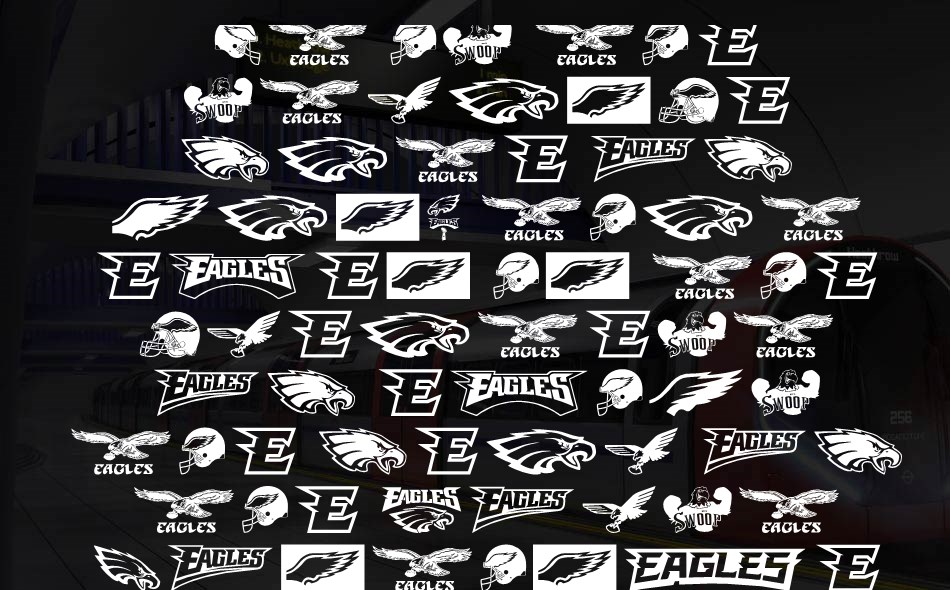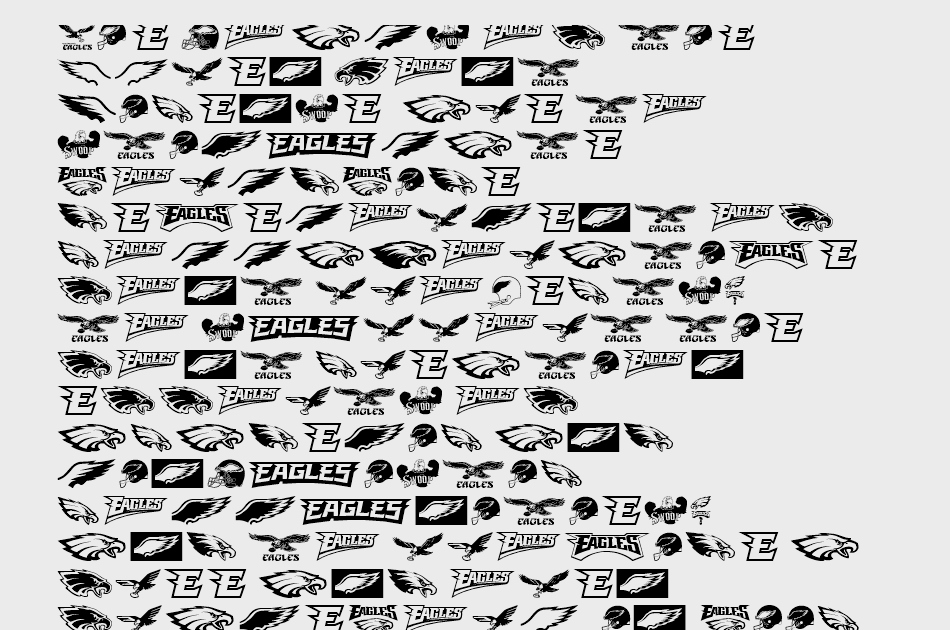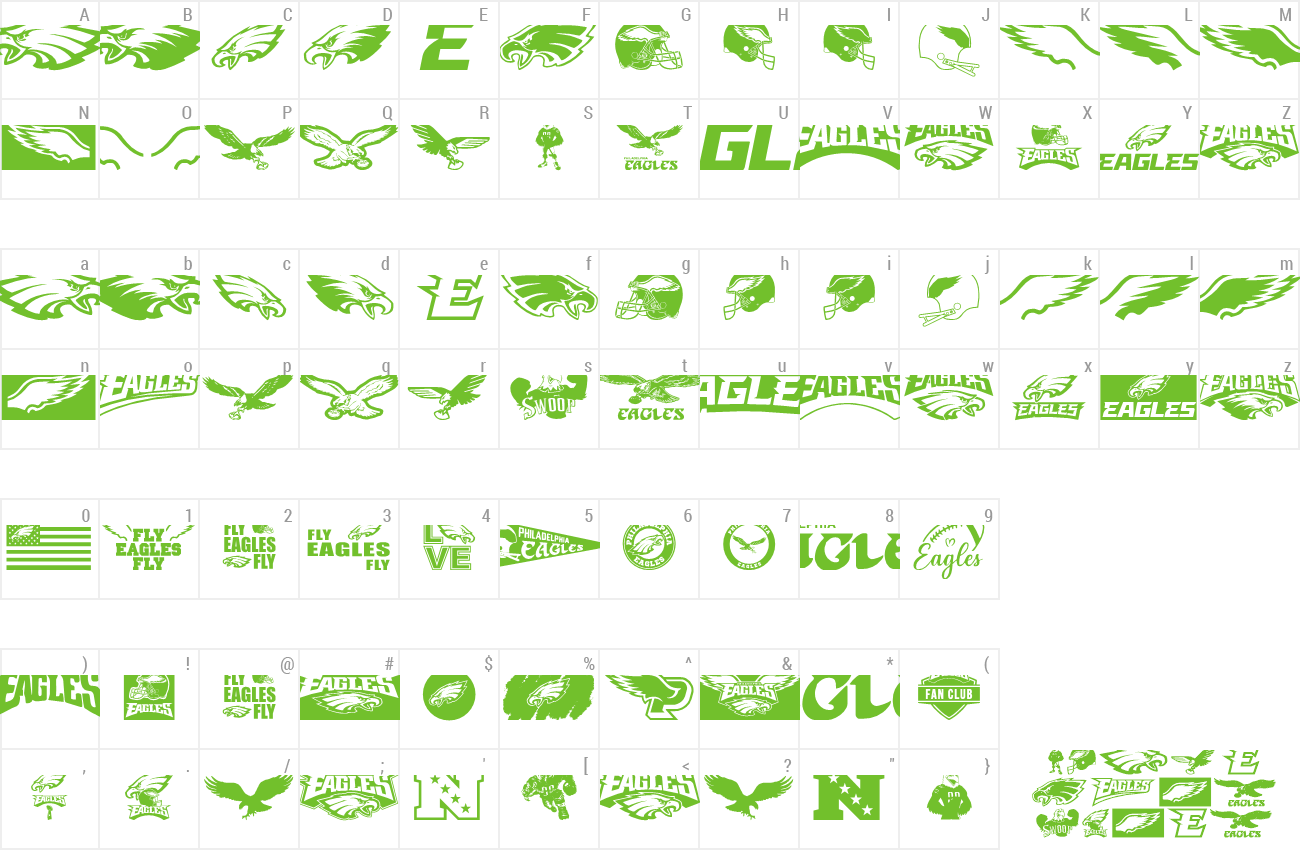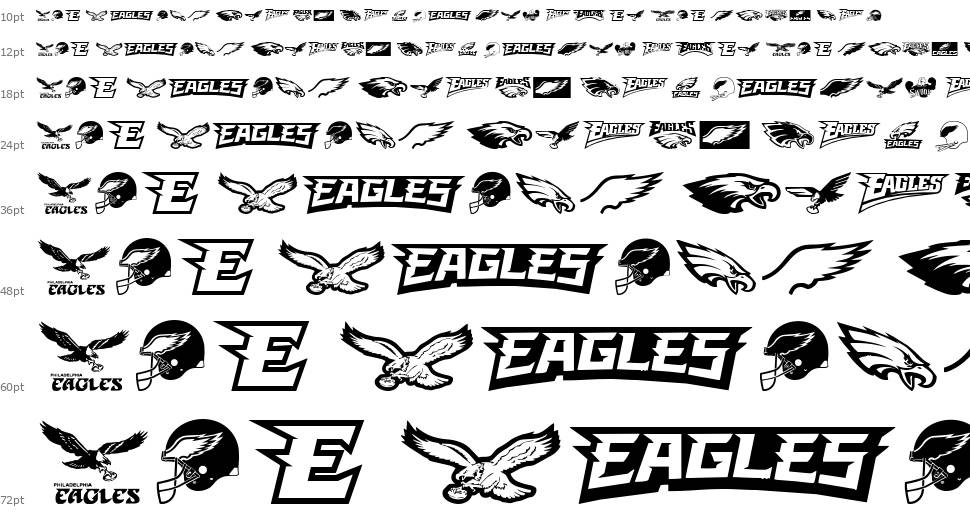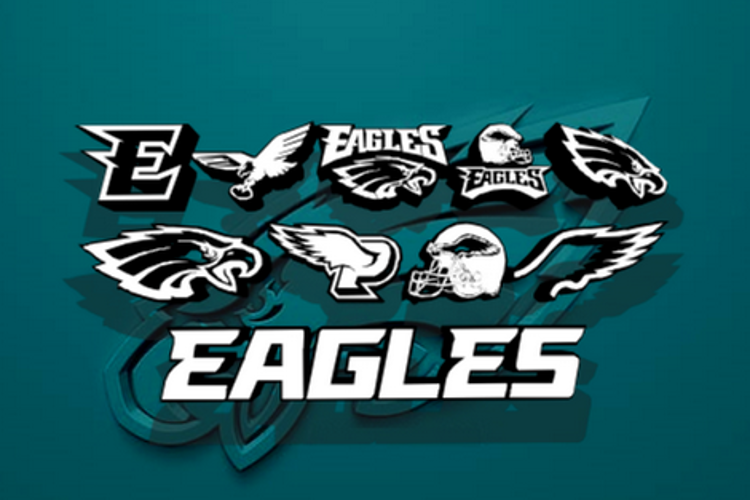
Fly Eagles Fly Font
Fly Eagles Fly Font - Web in dingbats > sport. Web fly eagles fly display font, it has a distinctive futuristic design.
Web fly eagles fly display font, it has a distinctive futuristic design. Web in dingbats > sport.
Web in dingbats > sport. Web fly eagles fly display font, it has a distinctive futuristic design.
Web fly eagles fly display font, it has a distinctive futuristic design. Web in dingbats > sport.
Web in dingbats > sport. Web fly eagles fly display font, it has a distinctive futuristic design.
Web fly eagles fly display font, it has a distinctive futuristic design. Web in dingbats > sport.
Web Fly Eagles Fly Display Font, It Has A Distinctive Futuristic Design.